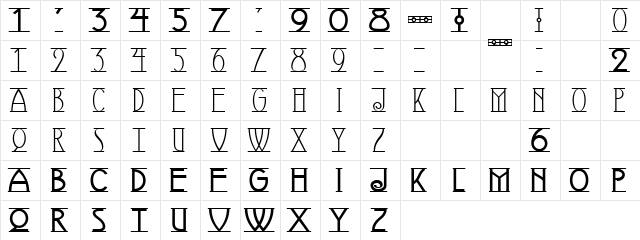
Quevaqy Trimol Regular
Design Context for Quevaqy Trimol Typeface
Quevaqy Trimol is a composed and adaptable typeface that performs quietly and consistently across a wide range of design contexts.